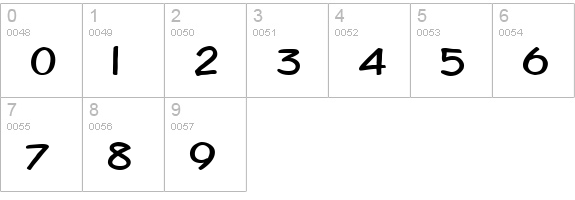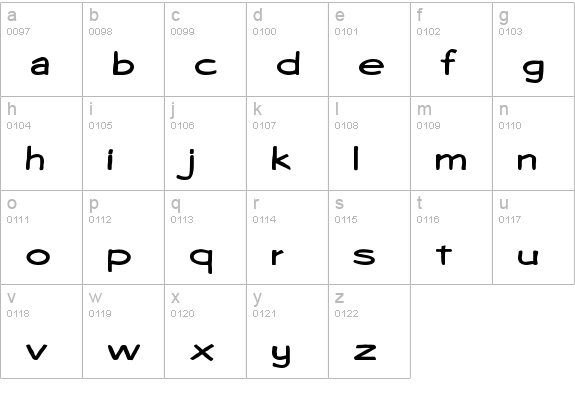
CopybookExtended Bold Font Details
CopybookExtended Bold is a strong, high-contrast variant in the CopybookExtended typeface family \xE2\x80\x94 well suited to headlines, attention-grabbing titles, and strong calls-to-action.
CopybookExtended Bold is a striking and versatile typeface that demands attention with its bold and strong design. Perfect for headlines, titles, and other prominent text, this font exudes confidence and authority. With its extended character set, CopybookExtended Bold is well-suited for a variety of design projects, from print materials to digital content. The best part? CopybookExtended Bold is freely available to download at FontsMarket.com, making it accessible to designers and creatives looking to make a bold statement with their typography. Don't miss out on this opportunity to enhance your projects with the impactful and modern style of CopybookExtended Bold.